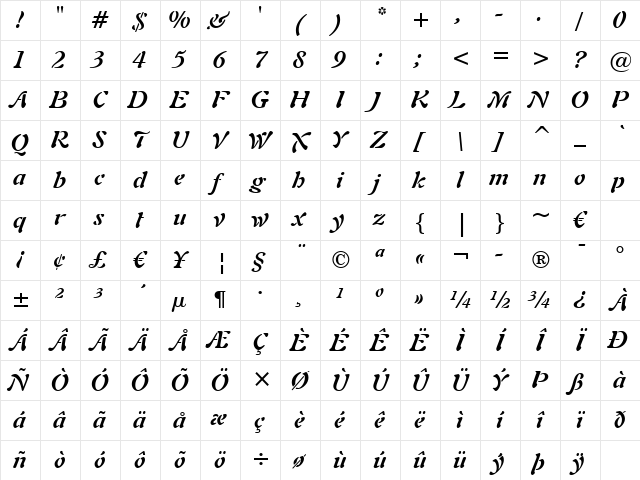
Freefrm721 BT Bold Italic
Design Context for Freefrm721 BT
Freefrm721 BT is a composed and adaptable typeface that performs quietly and consistently across a wide range of design contexts. The slanted form adds forward momentum and visual energy. Its bold stroke weight gives it real presence on the page.
Pro Tip: Use Freefrm721 BT for emphasis, pull quotes, and subheadings where its slanted energy can add rhythm to the layout.